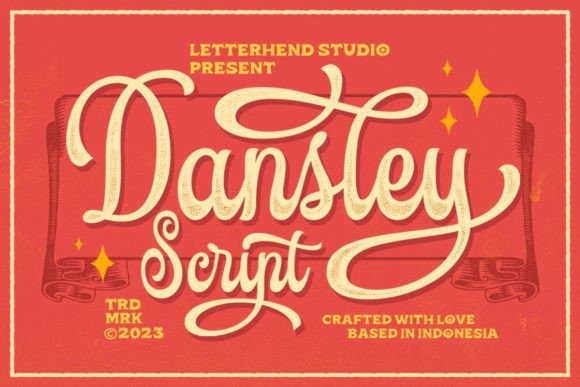
The Perfect Blend of Vintage and Sophistication
Have you ever found yourself lost in a sea of fonts, searching for the perfect one to capture the essence of your creative vision? I know I have. It’s that moment when you stumble upon a font that makes everything click – and that’s exactly what happens when you discover the Dansley Script Font.
This vintage and stylish script font is a treasure trove of elegance and sophistication, perfect for adding a touch of nostalgia to your designs. From branding to invitations, the Dansley Script Font is the perfect tool to convey a sense of timeless charm and refinement. Whether you’re a seasoned designer or just starting out, this font is an invaluable addition to your toolkit, allowing you to create designs that exude a sense of vintage charm and sophistication.
Dansley Script Font Key Features
- Font Family: Dansley Script Font
- Unique Characteristics: Hand-drawn, cursive, and elegant script font with a classic touch; ideal for invitations, weddings, and other special occasions
Dansley Script Font Review
Overall, I think the Dansley Script font is a lovely addition to any designer’s toolkit. Here are some things that really stand out to me:
- ✨ Elegant and refined feel: The Dansley Script font has a beautiful, handwritten look that’s perfect for adding a touch of sophistication to your designs.
- ✨ High-quality design: The font is well-crafted and smooth, making it a pleasure to work with.
- ✨ Versatile: The font comes in a range of weights, from light to bold, making it suitable for a variety of projects and styles.
However, there are a few limitations to be aware of:
- ⚠️ Limited language support: The font may not be suitable for projects that require support for non-Latin scripts or languages.
- ⚠️ May not be suitable for small text: The font’s elegant feel can sometimes make it difficult to read at small sizes, so be sure to test it in different contexts.
- ⚠️ Some users may find it too ornate: While I love the font’s refined feel, some users may find it too decorative or over-the-top for their taste.
Overall, I think the Dansley Script font is a great choice for designers who want to add a touch of elegance to their projects. Just be aware of its limitations and use it thoughtfully.
Getting the Most Out of Dansley Script Font
For best results, use Dansley Script Font for titles, headings, and other decorative text elements.
Experiment with different font sizes, colors, and styles to create a unique and eye-catching design.
Dansley Script Font is ideal for:
- Printable art and wall decor
Alternative Script Fonts for Designers
Great Vibes is a beautiful, elegant script font suitable for formal and wedding invitations, branding, and advertising. It’s ideal for adding a touch of sophistication to your designs. Compared to Dansley Script Font, Great Vibes has a more refined and polished appearance, making it perfect for high-end projects.
Carolyna Pro is a modern, elegant script font with a touch of sophistication. It’s ideal for branding, advertising, and editorial designs. Compared to Dansley Script Font, Carolyna Pro has a more modern and sleek appearance, making it perfect for contemporary projects.
Alex Brush is a elegant, handwritten script font suitable for invitations, branding, and advertising. It’s ideal for adding a touch of warmth and personality to your designs. Compared to Dansley Script Font, Alex Brush has a more organic and hand-written appearance, making it perfect for projects that require a personal touch.
Dancing Script is a elegant, cursive script font suitable for formal invitations, branding, and advertising. It’s ideal for adding a touch of elegance and sophistication to your designs. Compared to Dansley Script Font, Dancing Script has a more fluid and dynamic appearance, making it perfect for projects that require a sense of movement and energy.